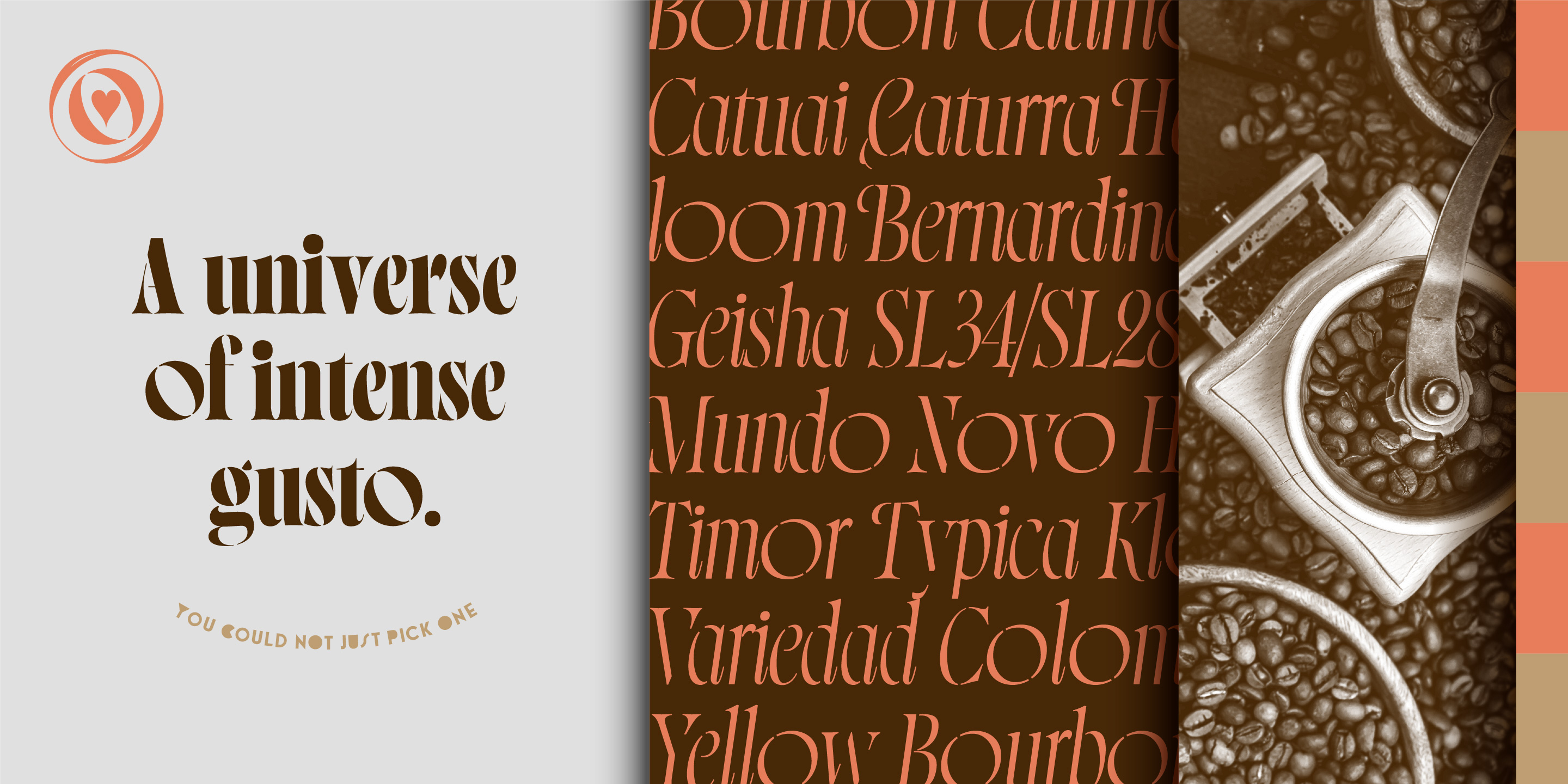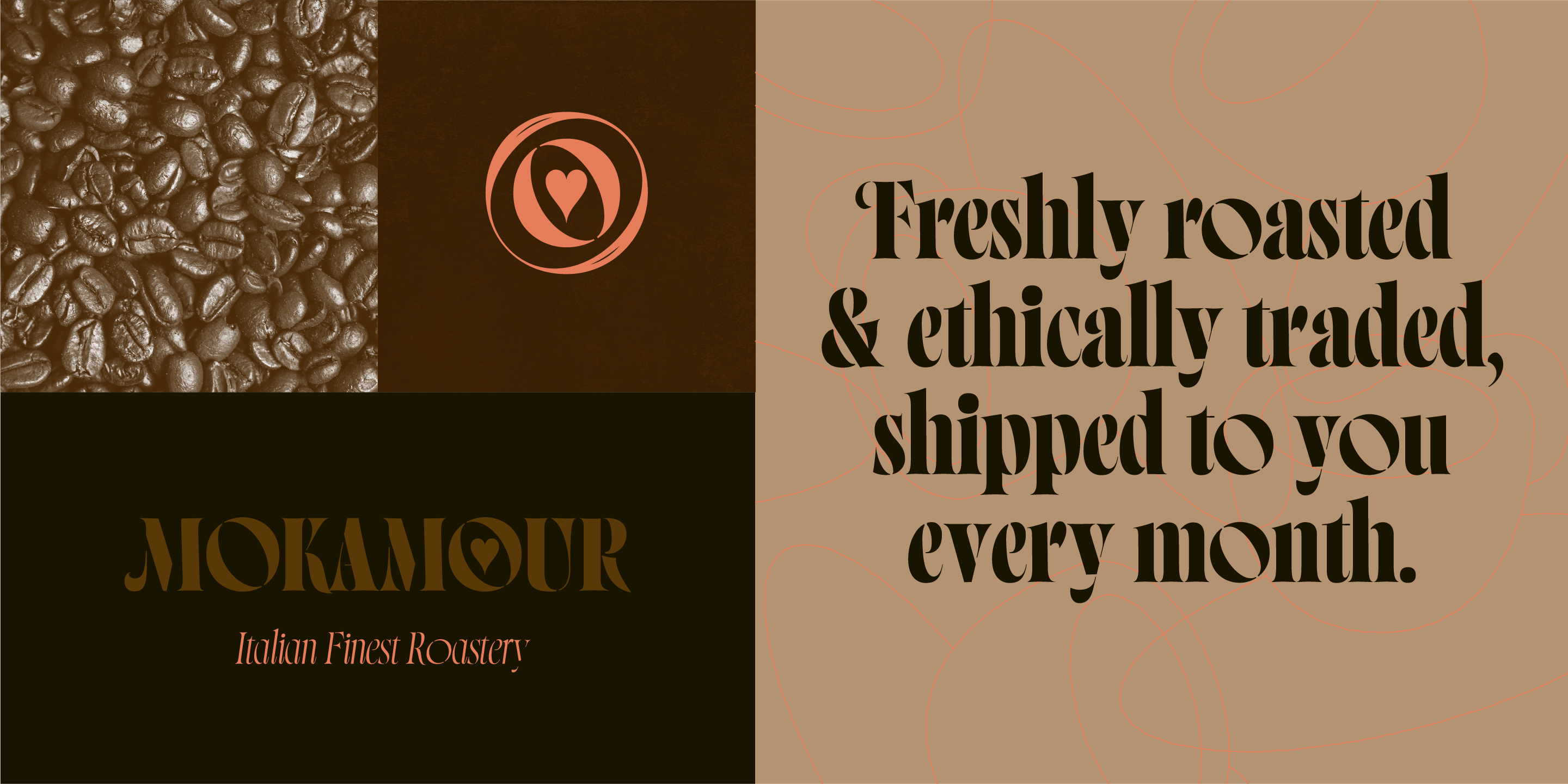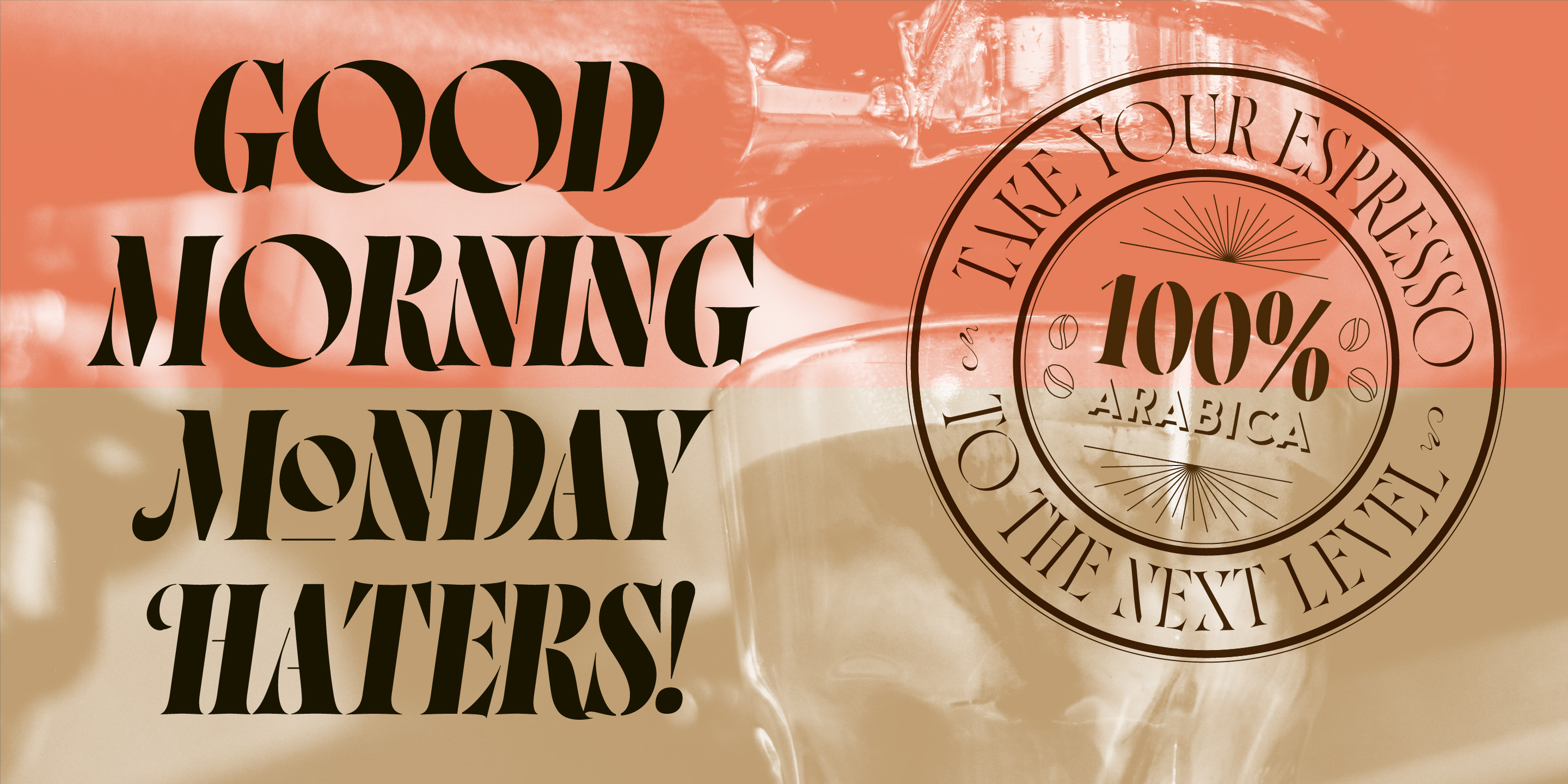
Norman Stencil Collection
Norman Stencil
Regular Medium Bold Fat Italic Italic Medium Italic Bold Fat ItalicStencil Serif font family
Norman Stencil
Designed by Resistenza Type FoundryThe stencil version of our best seller Norman